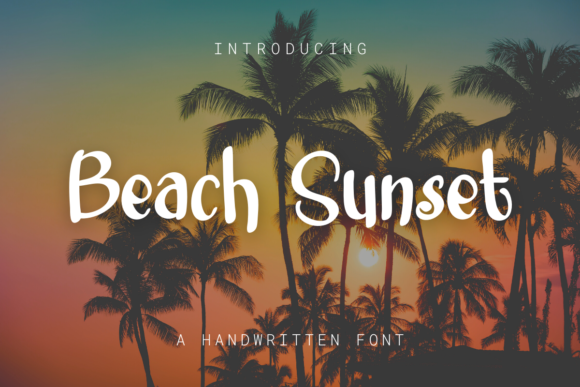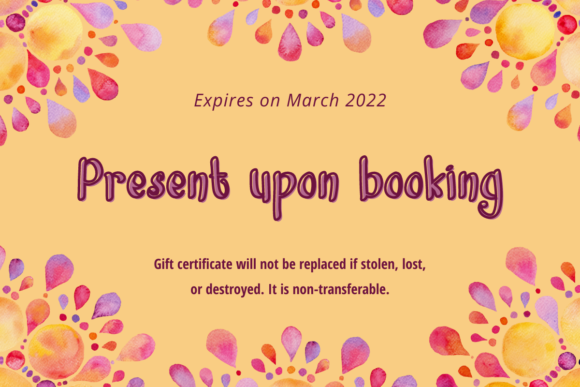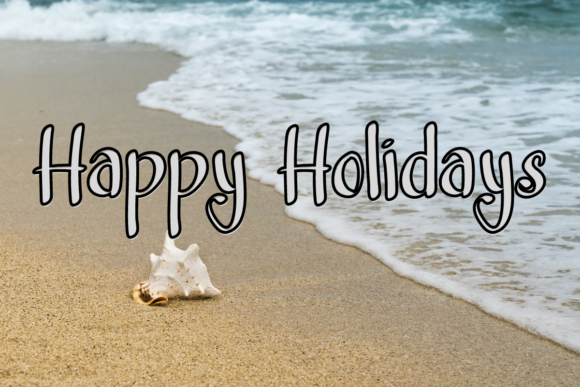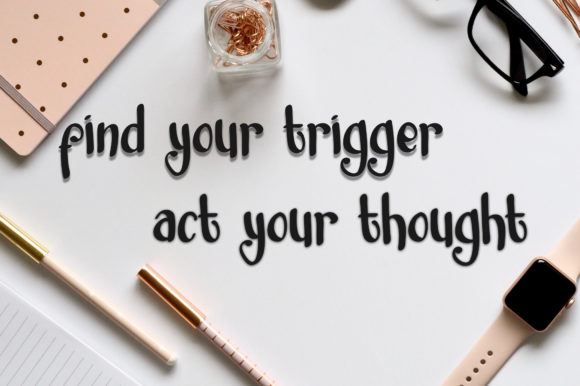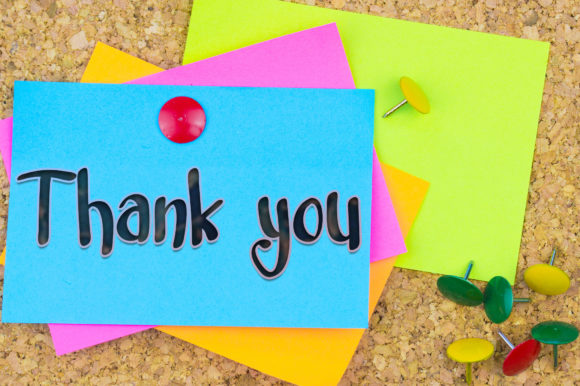
About Beach Sunset Font
Beach Sunset is a chic, refined script font that emanates sophistication and elegance. Its stylish alternates and ligatures make this font the perfect match for any project.